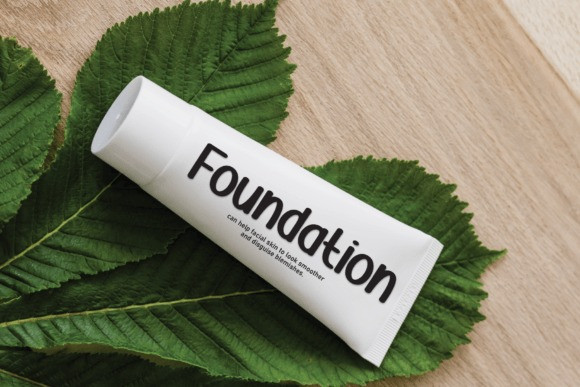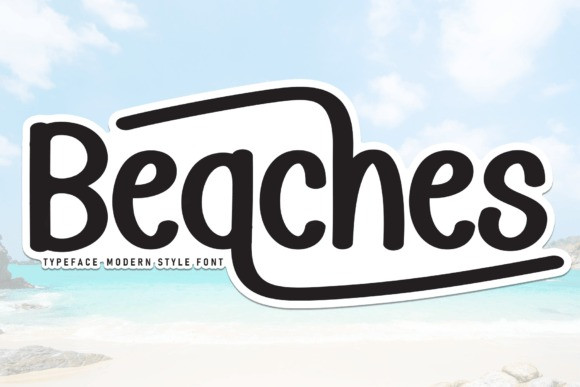
Beaches Font
Beaches Font is a sweet and friendly handwritten display font. Cute and fun, this font is ideal for writing wedding invitations, cards, or any other design that might need a fun touch!